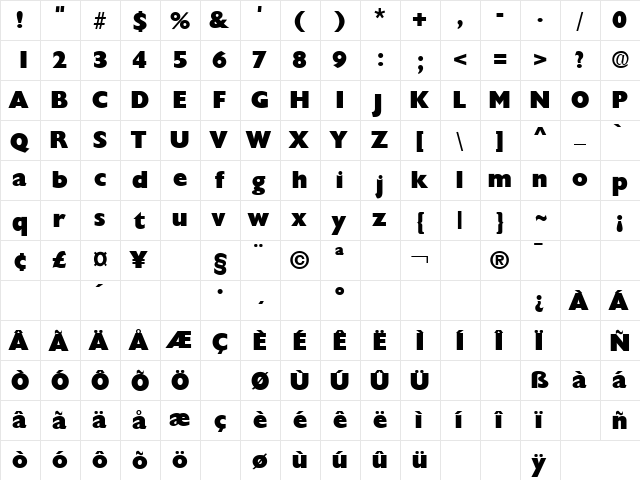
Hardrada Regular
Design Context for Hardrada Typeface
Hardrada takes a measured approach to typography — its balanced proportions and neutral character make it a reliable workhorse for both digital and print work.